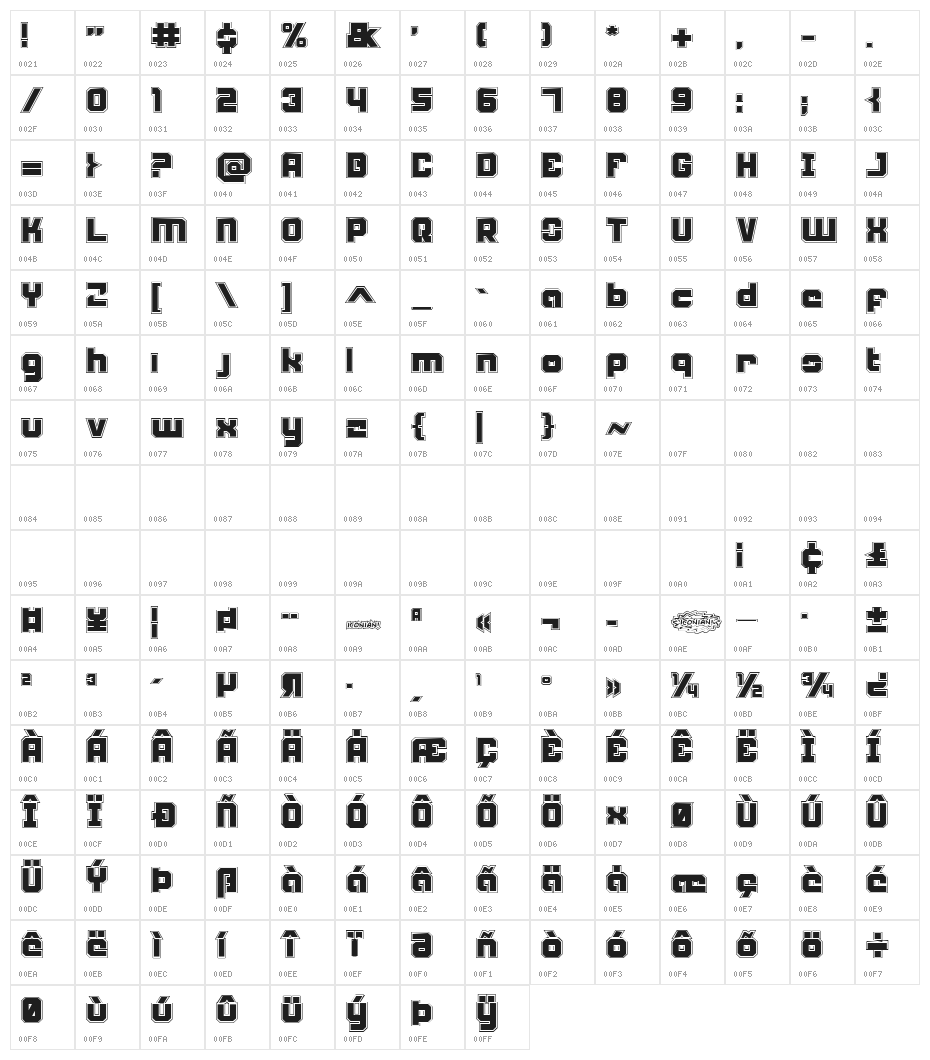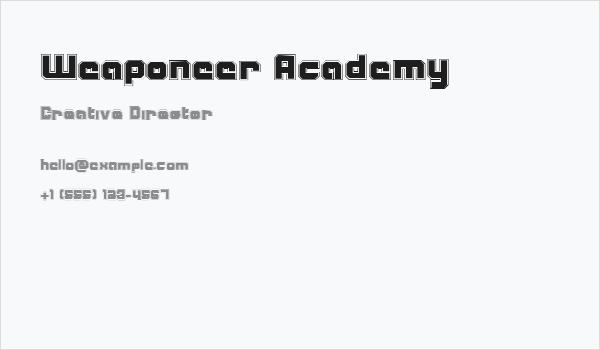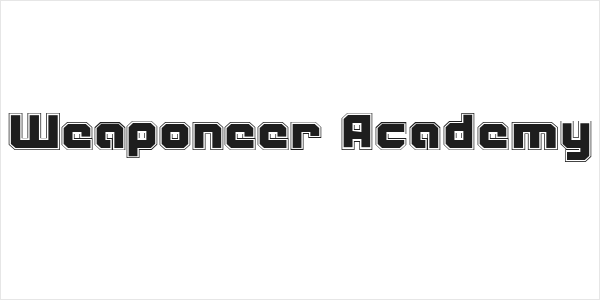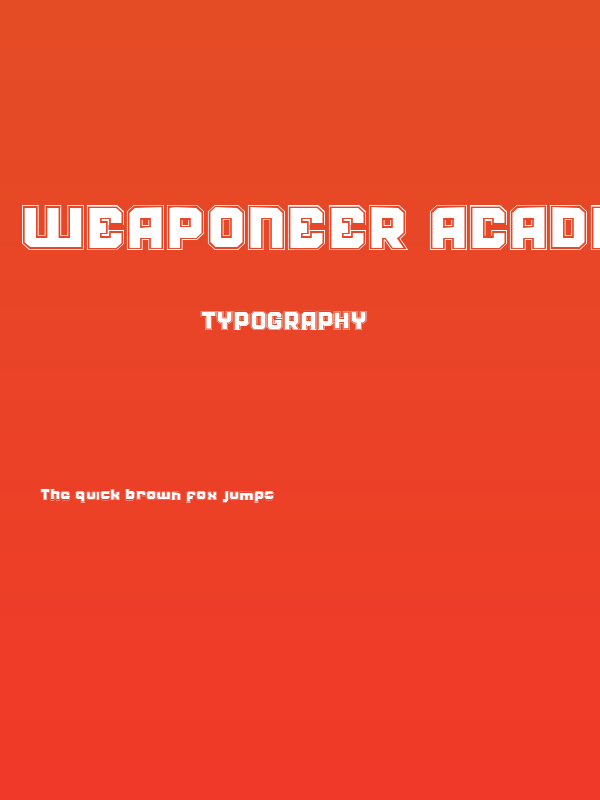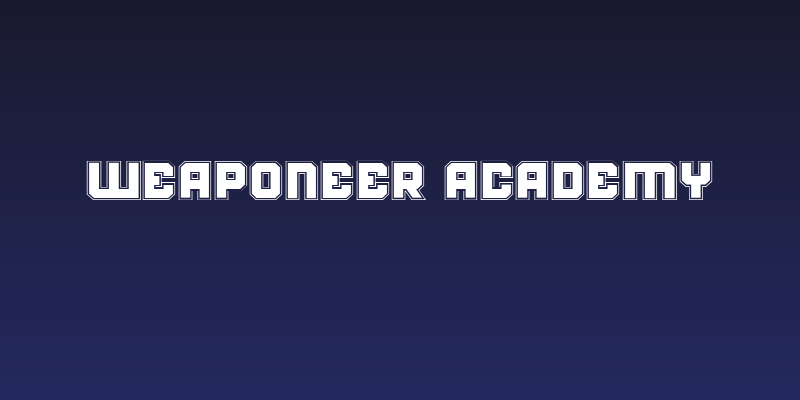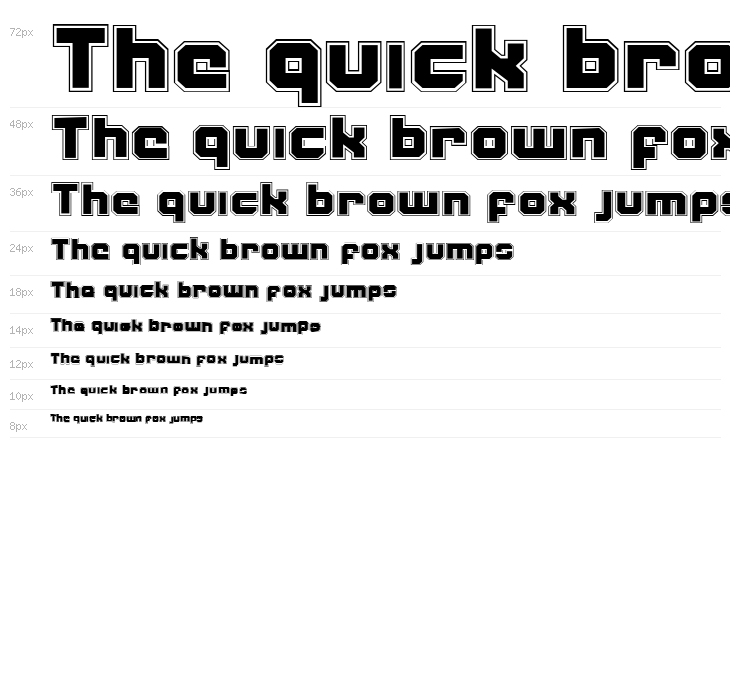
Weaponeer Academy Font
Weaponeer Academy Description
This font features a bold, geometric design with a strong, industrial feel. The characters are outlined with a thick border, giving them a three-dimensional appearance. The uppercase and lowercase letters maintain a consistent style, with angular edges and a blocky structure. The numerals and special characters follow the same design principles, ensuring uniformity across the font. The overall look is modern and assertive, making it suitable for projects that require a strong visual impact.
| Proposed Projects | Ideal for video game titles, tech branding, posters, and any design needing a strong, modern touch. |